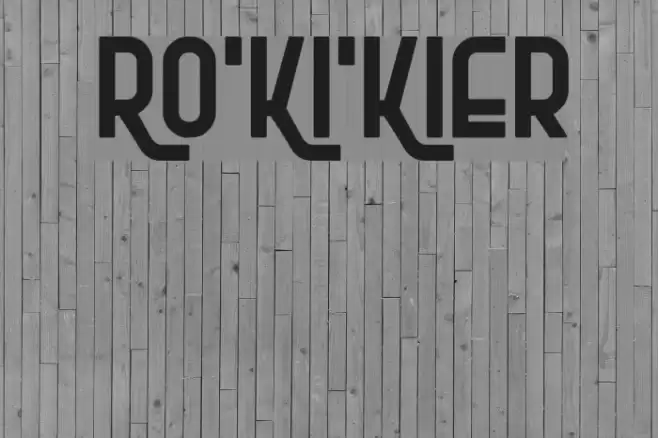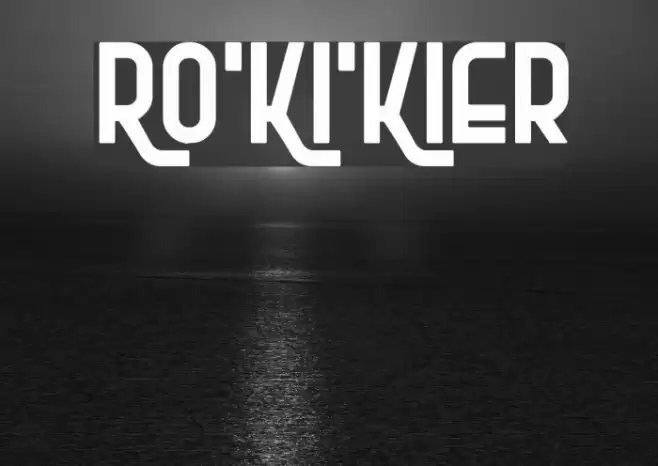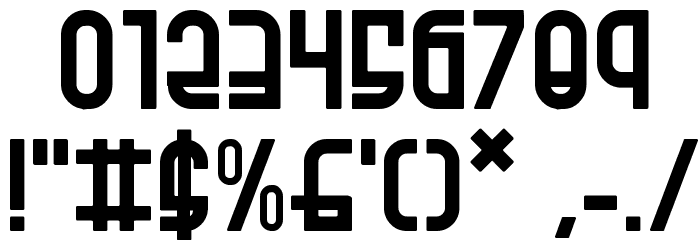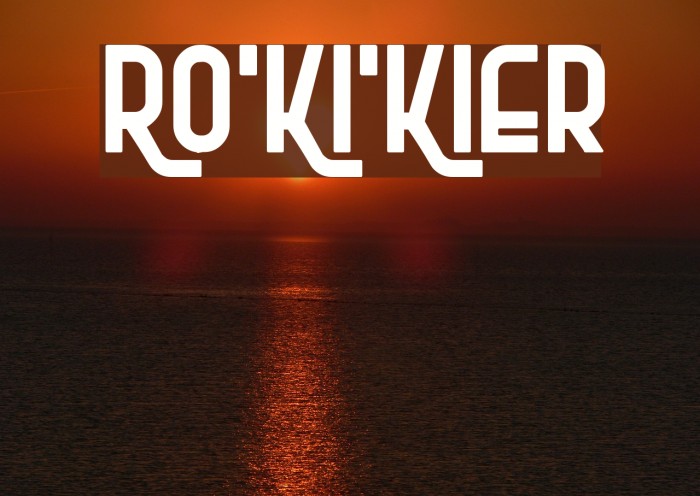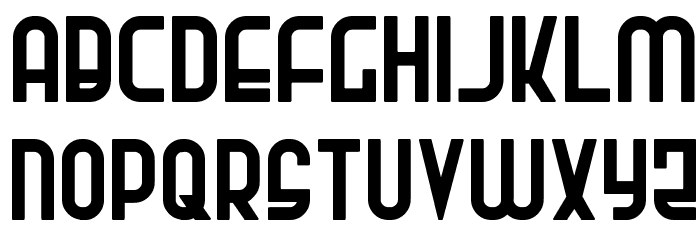
Ro'Ki'Kier Font
Ro'Ki'Kier Description
This font features a bold, geometric style with a modern and futuristic aesthetic. The characters are constructed with consistent stroke widths, creating a uniform appearance. The design includes unique angular elements, particularly noticeable in letters like 'A', 'K', and 'R', which add a distinctive flair. The numerals and special characters maintain the same geometric consistency, ensuring a cohesive look across all glyphs. The overall style is clean and minimalistic, making it suitable for contemporary design projects.
A bold, geometric font with a modern and futuristic style from Uncategorized fonts.
- Proposed Projects: Ideal for technology branding, modern posters, and digital interfaces.